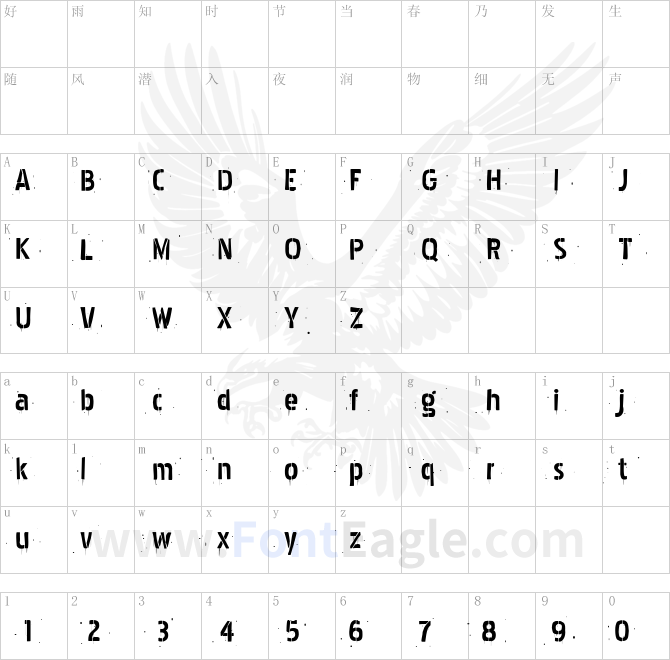
- Font name:Pakenham
- Font Subfamily:Spraypaint
- Font Subfamily ID:Macromedia Fontographer 4.1.4 Pakenham Spraypaint
- Font Full Name:Pakenham Spraypaint
- Font Version:Macromedia Fontographer 4.1.4 09/07/2001
- Postscript:PakenhamSpraypaint